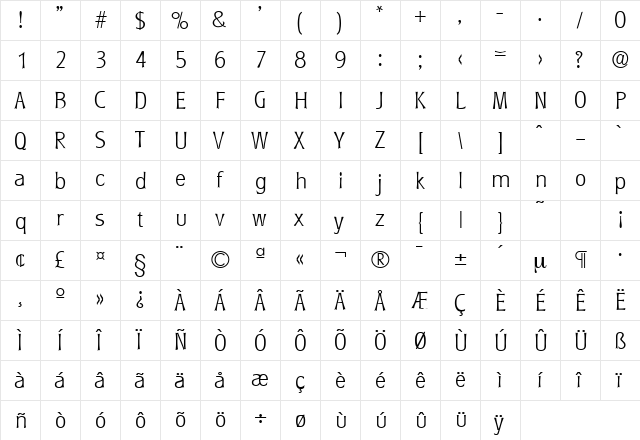
Roundest-Serial-ExtraLight Regular Font Preview
Design Context for Roundest-Serial-ExtraLight Typeface
Roundest-Serial-ExtraLight uses gentle rounded endings to create a warm, inviting typographic personality — less corporate than geometric sans, more refined than playful display fonts. The delicate stroke weight brings airiness and refinement to layouts.
Well-suited to UI design, mobile interfaces, and any brand that wants approachability without sacrificing clarity.
Font Pairing: Pairs well with a rounded or humanist sans for body copy, maintaining the friendly tone without relying on Roundest-Serial-ExtraLight to carry extended reading.
Pro Tip: Use Roundest-Serial-ExtraLight for UI elements, app interfaces, and anywhere a friendly, approachable tone needs to be maintained without sacrificing clarity.